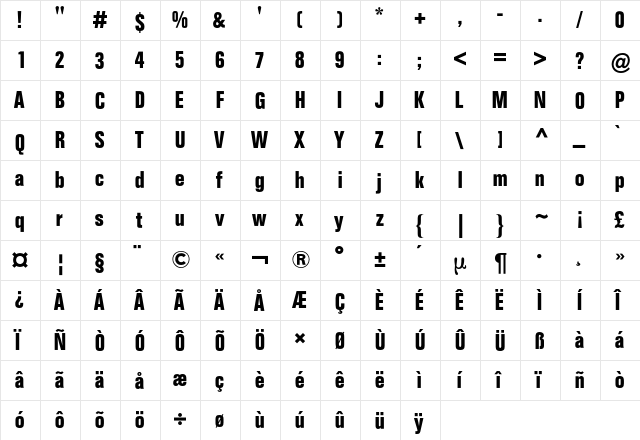
Folio BQ Regular
Design Context for Folio BQ Typeface
Folio BQ offers clean, dependable letterforms without strong stylistic allegiance, making it a practical choice for designers who need flexibility.